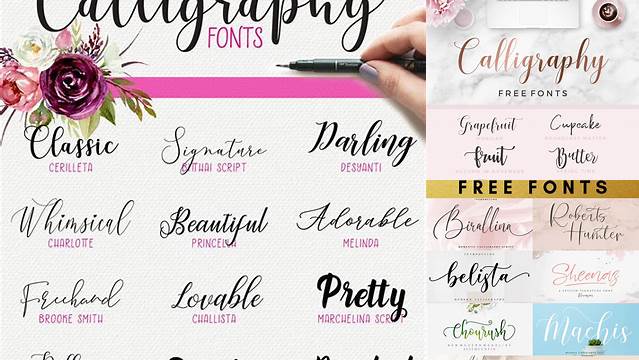
Free Script And Calligraphy Fonts: Download Now!
Hey guys, are you on the hunt for some amazing script or calligraphy fonts? You've come to the right place! Whether you're a seasoned designer, a newbie crafter, or just someone who loves beautiful typography, finding the perfect font can seriously level up your projects. In this comprehensive guide, we'll dive deep into the world of script and calligraphy fonts, offering you the best free download options, tips on how to use them, and a whole bunch of inspiration to get your creative juices flowing. Let's get started!
What are Script and Calligraphy Fonts?
Alright, let's break down the basics. Script fonts are designed to mimic handwriting, flowing cursive styles, and often have a sense of elegance and personality. Think of them as digital versions of real-life pens and brushes dancing across the page. They're super versatile and can be used for everything from wedding invitations and logos to social media graphics and website headers. You'll find all sorts of script styles, ranging from the super-formal, like a classic Spencerian script, to more modern and playful styles, like a bouncy brush script. The beauty of script fonts lies in their ability to add a touch of sophistication and a personal touch to any design. The best part is that you can find a ton of script fonts available for free download, which opens up endless creative possibilities without breaking the bank. Script fonts are generally known for their connecting letterforms, which helps to create a sense of flow and visual harmony. This also makes them ideal for conveying a sense of movement and dynamism. They often have decorative elements, like swashes and flourishes, that add visual interest and help to draw the viewer's eye. These extra touches are what make script fonts so appealing for projects where you want to add a touch of flair and creativity.
On the other hand, calligraphy fonts are specifically designed to emulate the look of traditional calligraphy. They tend to be more formal and often have a more structured feel than script fonts, although there's plenty of overlap between the two categories. Calligraphy fonts are all about the art of beautiful writing, with a focus on the shape of the letters, the flow of the strokes, and the overall aesthetic. Think about the precision and grace of a master calligrapher, and that's the vibe that calligraphy fonts bring to your projects. Calligraphy fonts are perfect for conveying a sense of luxury, sophistication, or artistry. They are often used in high-end branding, elegant invitations, and projects where a premium look is desired. You can find free download options for a variety of calligraphy fonts, and these can add a professional and artistic element to your work. Both script and calligraphy fonts are valuable tools in any designer's toolkit. They can really help to elevate the design, and you can find a great selection of free options to play around with. When it comes to choosing between a script and calligraphy font, it often depends on the overall mood you want to create. Script fonts can be a great option when you want something more casual, and calligraphy fonts may be a great option when you want something more formal.
Key Differences and Similarities
While script and calligraphy fonts share the common goal of mimicking handwriting, they have some key differences. Script fonts are generally more flexible and adaptable. They come in a wider range of styles, from casual to formal. Script fonts often have a more relaxed feel, while calligraphy fonts usually feature a more structured and precise appearance. Both script and calligraphy fonts are incredibly versatile and can bring a unique touch to various designs. They share the core goal of adding a human touch to your project. The primary similarity lies in their ability to add a personal touch. They both aim to mimic the beauty of hand-drawn or handwritten styles, which makes your designs feel more approachable and friendly. Both are great options when you want to add a touch of elegance and personality to your design. They also both offer a unique way to express your creativity and add a creative touch to any design project.
Where to Find Free Script and Calligraphy Fonts
- Font Squirrel: Font Squirrel is another excellent source for free fonts. They hand-pick high-quality fonts and make sure they are free for commercial use. This is a great choice if you're looking for fonts you can use for any project. Font Squirrel's focus is on providing fonts that are free to use. They also offer a tool that allows you to identify fonts from images, which is super handy. The website is simple to navigate and offers a variety of script and calligraphy fonts. They also have a great selection of high-quality fonts to choose from. They offer a selection of commercial-use fonts, making it a safe option for projects where you want to avoid any licensing issues.
- BeFonts: BeFonts offers a curated selection of free fonts. This site also provides you with previews of the font in use. It's a great way to discover new fonts and get design inspiration. BeFonts offers a variety of script and calligraphy fonts. The website is designed to be user-friendly. There are fonts available for commercial and personal use.
- Creative Market: Although Creative Market is primarily a marketplace for paid fonts, they often offer free fonts as part of their weekly promotions. Keep an eye out for those freebies! The freebies are a great way to expand your font library. These free downloads are a fantastic opportunity to try out a new font style. You can download these free fonts with the expectation that they are available for both commercial and personal use, but always double-check the license terms. Creative Market is a great place to find professional-quality fonts. These fonts are excellent options to enhance your projects.
Tips for Using Script and Calligraphy Fonts
Alright, you've got your fonts downloaded. Now what? Here are some tips to get the most out of your script and calligraphy fonts:
- Pairing Fonts: One of the most important things is to pair your script or calligraphy font with a complementary font. A good rule of thumb is to pair a more decorative script font with a simpler, cleaner font for the body text. For example, a delicate script font for headings might look great with a clean sans-serif font for the main content. Experiment with different combinations to find what looks best for your project. The font you use with your script or calligraphy choice should balance the overall look. It helps to ensure readability, as well as visual harmony. The key is to consider the weight, style, and purpose of each font in relation to the other.
- Readability: Always prioritize readability. Script fonts, especially those with intricate details, can be harder to read than other font types. Make sure you're using them at an appropriate size and on a background with enough contrast. Avoid using them for large blocks of text. For lengthy content, a more readable font is often a better choice. Also, make sure your chosen script or calligraphy font is clear to avoid any confusion. Keep in mind that the readability of a font can depend on the context and the target audience.
- Spacing and Kerning: Pay close attention to the spacing and kerning (the space between individual letters) of your font. Sometimes, script fonts can look cramped or awkward if the spacing isn't just right. Most design software lets you adjust the kerning manually. You may need to adjust the spacing manually. Take the time to make small adjustments to ensure that your text looks polished and professional. Sometimes, even minor adjustments to kerning can significantly improve the overall look of your text. This is important for maintaining the visual appeal of your text.
- Color and Contrast: Choose colors that complement your font. Dark fonts work well on light backgrounds, and vice versa. Consider the color scheme. Keep in mind the mood that you want to create. Using contrasting colors can make your text pop and make it easier to read. Make sure there's enough contrast between the font and the background. This will make your text stand out.
- Context is Key: Consider the context of your design. A script font might be perfect for a wedding invitation but not so much for a scientific report. Think about your audience and the overall message you want to convey. Match the font style to the tone of your message. The suitability of a font depends on the use case. Make sure the font is consistent with the overall design style.
Common Uses and Inspiration
So, where can you use these gorgeous fonts? Here are some common uses for script and calligraphy fonts, along with some inspiring ideas:
- Wedding Invitations: Script and calligraphy fonts are a classic choice for wedding invitations. They add an elegant and romantic touch. You can use them for the couple's names, the date, and other important details. They help set the tone for the wedding. You can also use them to create envelope addresses and place cards. These fonts are super versatile. You can combine them with floral or other decorative elements. They add personality to invitations.
- Logos and Branding: Script fonts can be perfect for creating logos for businesses, especially those in the fashion, beauty, or creative industries. They can give your brand a unique and memorable look. Use a script font for the brand name and a simpler font for the tagline. These fonts help to create a memorable brand identity. They can also set your brand apart from competitors. They can also be combined with various design elements.
- Social Media Graphics: Elevate your social media game with script fonts. Use them for eye-catching headlines, quotes, and call-to-actions. Use a script font to make your graphics stand out. You can use these fonts for captions, banners, and promotional materials. They are great for creating visually appealing content. They're also perfect for quotes, and they can attract more attention.
- Greeting Cards and Stationery: Make your cards and stationery more personal with script fonts. They add a handwritten touch that shows you care. Use them for names, messages, and special greetings. They add personality to your stationary. You can also use them for thank you notes and other paper products. These are a great way to show appreciation.
- Website Headers and Titles: Add personality to your website's headings with script fonts. Use them to draw attention to key content and create a welcoming feel. Choose a script font that matches your brand's style. Keep in mind the importance of readability and contrast. These fonts help to improve the user experience. They also attract attention to key sections of your website.
Well guys, that's the lowdown on script and calligraphy fonts! They're a fantastic way to add personality and elegance to your designs. With the wealth of free download options available, you can experiment with different styles and find the perfect fonts for your projects. Remember to always check the licensing terms and have fun creating! Happy designing!